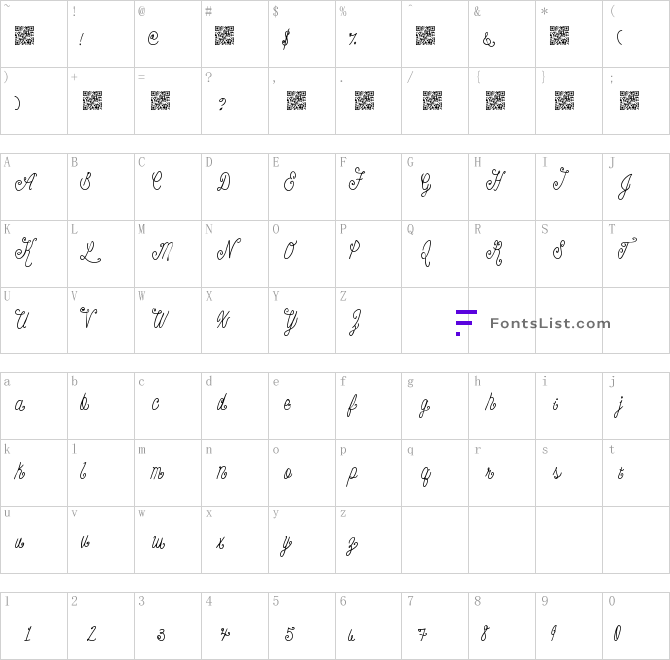
- Font Name:BeautyScript
BeautyScript.ttf is a very beautiful artistic font, BeautyScript.ttf is widely used in the design and printing of various books and pictures,BeautyScript.ttf has a strong visual impact,BeautyScript.ttf is a commonly used font in newspapers, magazines and books, and is used in posters, e-commerce Poster design, store design, logo design, font design and other fields.BeautyScript.